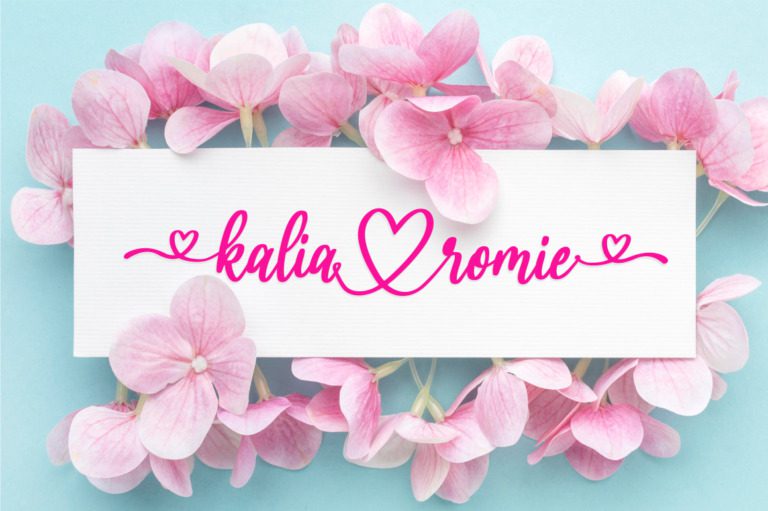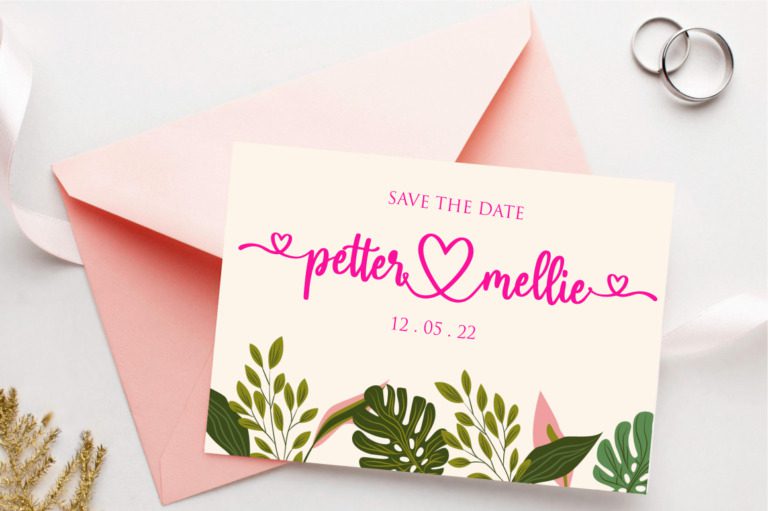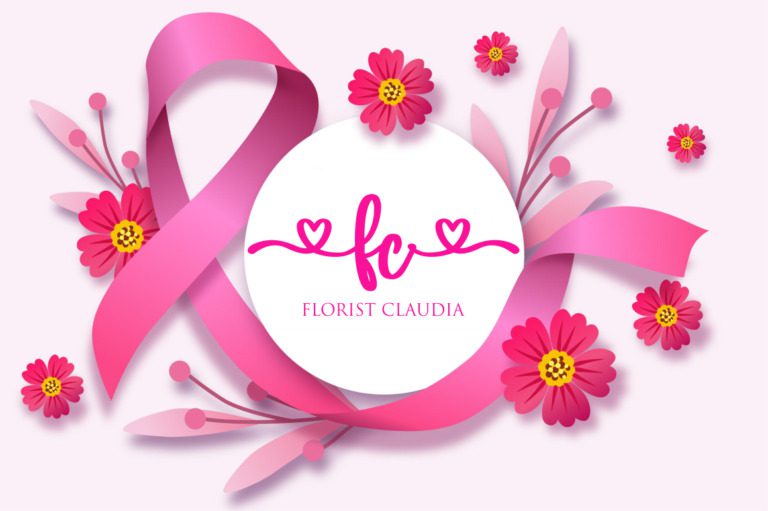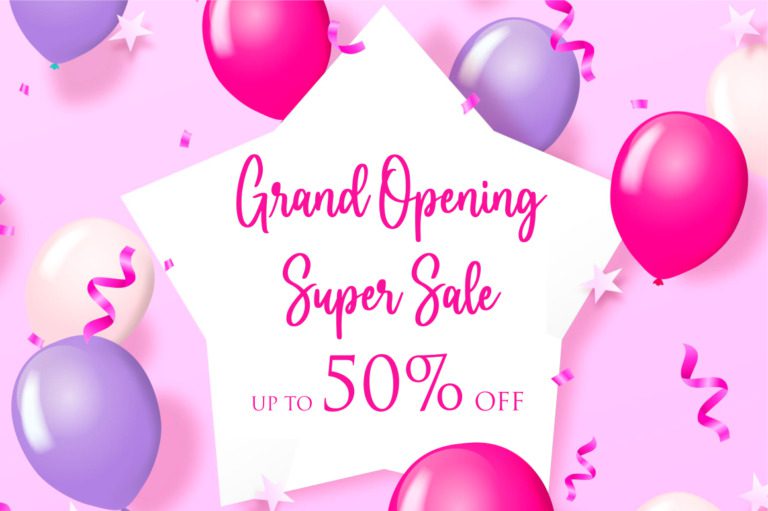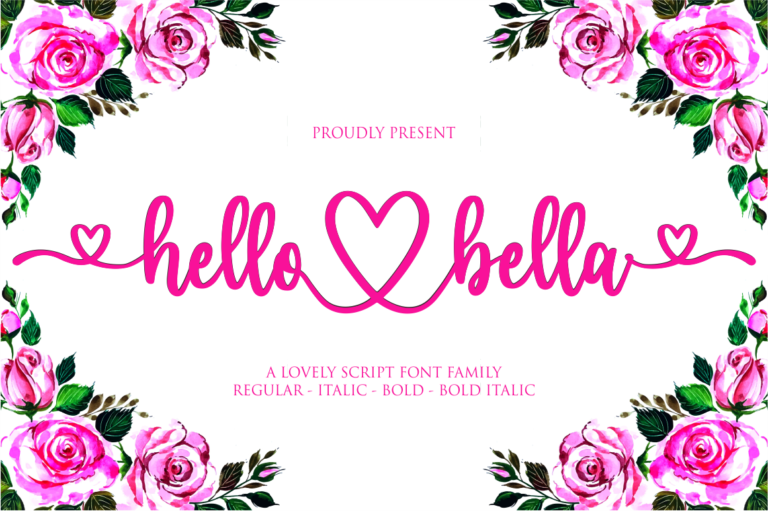
Hello Bella Font
Hello Bella Font is a cheerful and feminine typeface with a handwritten style. Its playful curves and organic shapes create a warm and inviting atmosphere. The font is perfect for projects that require a touch of personality and charm, such as greeting cards, social media posts, and branding for creative businesses.